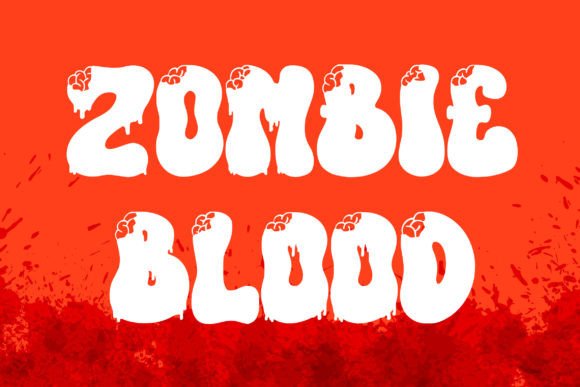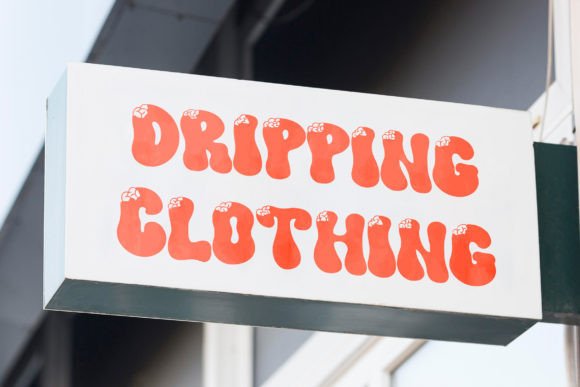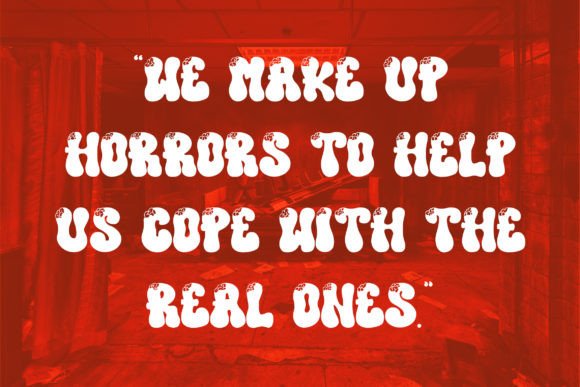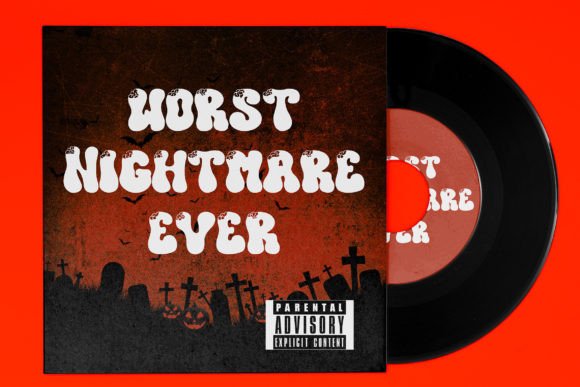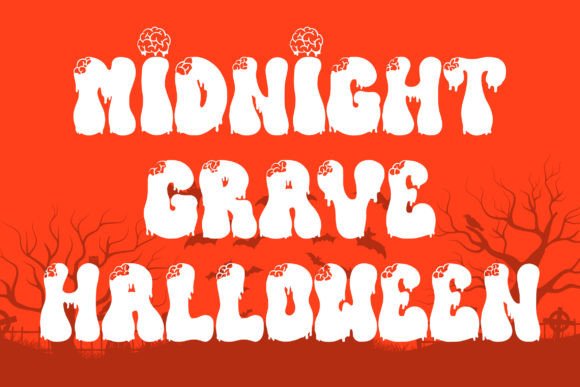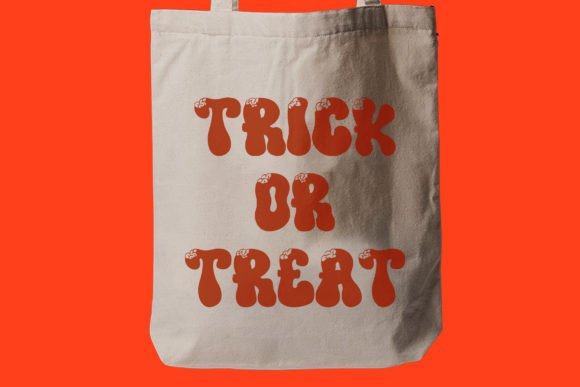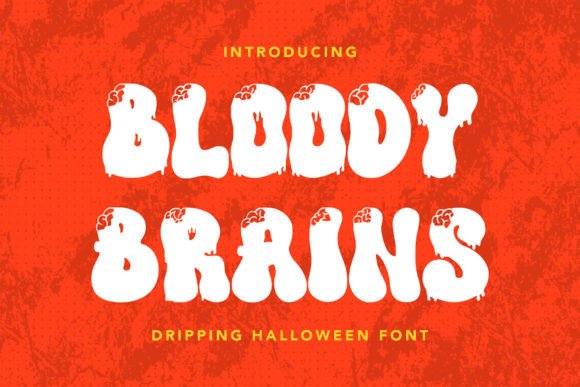
Bloody Brains Font: The Ultimate Halloween Decorative Font for Designers and Crafters
Are you looking for a font that will add a spooky touch to your designs and make them stand out this Halloween season? Look no further than the Bloody Brains Font! Inspired by gothic and horror genres, this blood-dripping brain-spilling font is perfect for creating eye-catching logotypes, posters, badges, book covers, T-shirt designs, packaging, and more.
What is Bloody Brains Font?
Bloody Brains Font is a unique and creative font designed specifically for Halloween-themed projects. Its dripping blood and spilling brain design elements make it a perfect fit for gothic and horror-inspired designs. The font is versatile and can be used for a wide range of projects, from logotypes and posters to book covers and T-shirt designs.
Key Features of Bloody Brains Font
- Unique Design: The Bloody Brains Font features a one-of-a-kind design that is sure to grab attention. Its blood-dripping and brain-spilling elements make it perfect for Halloween-themed projects.
- Versatile: This font can be used for a wide range of projects, including logotypes, posters, badges, book covers, T-shirt designs, packaging, and more.
- Gothic and Horror Inspiration: The font is inspired by gothic and horror genres, making it perfect for designers and crafters who want to create spooky and eye-catching designs.
How to Use Bloody Brains Font in Your Designs
- Logotypes: Create a spooky logotype for your business or brand using the Bloody Brains Font.
- Posters: Design an eye-catching poster for a horror movie or Halloween event using the Bloody Brains Font.
- Badges: Create a badge or icon for your website or social media profiles using the Bloody Brains Font.
- Book Covers: Design a spooky book cover for a horror novel or Halloween-themed book using the Bloody Brains Font.
- T-Shirt Designs: Create a unique T-shirt design for Halloween or a horror-themed event using the Bloody Brains Font.
Tips and Tricks for Getting the Most Out of Bloody Brains Font
Here are a few tips and tricks for getting the most out of the Bloody Brains Font:
- Experiment with Different Colors: Try using different colors to create a unique and eye-catching design.
- Combine with Other Fonts: Combine the Bloody Brains Font with other fonts to create a unique and interesting design.
- Use in Combination with Images: Use the Bloody Brains Font in combination with images or graphics to create a spooky and eye-catching design.